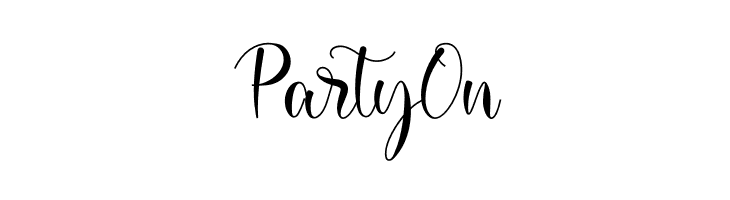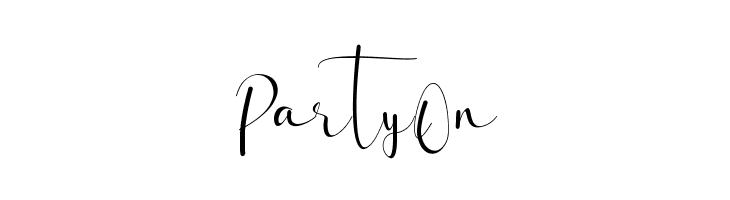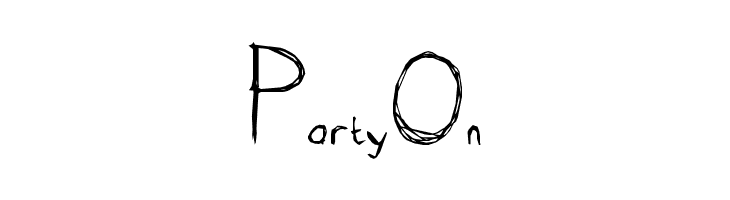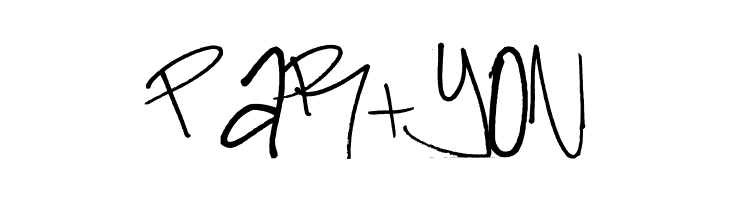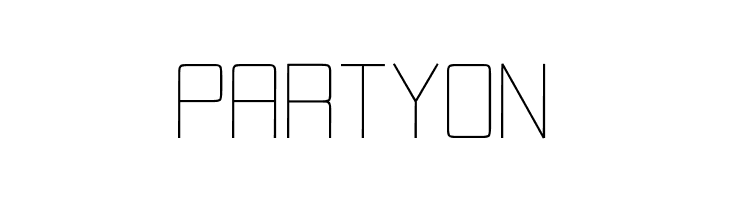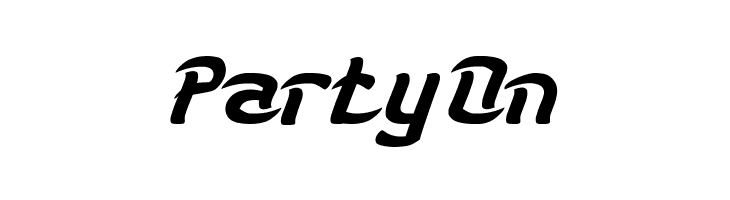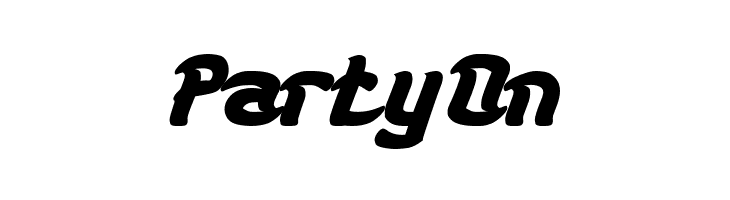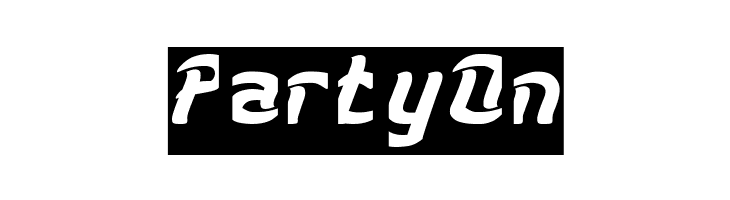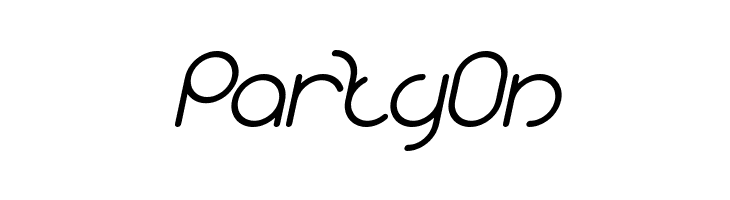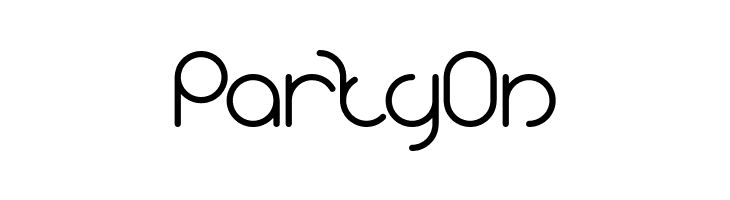
• Kacugak - demo version
A geometric, minimalist font with thin lines and angular shapes, perfect for modern designs.
• Kadafia
A dynamic, handwritten font with fluid strokes and an expressive style.
• Kallyca Kallyca
An elegant and flowing script font with graceful curves and fluid strokes.
• Kamiley
A playful and elegant script font with flowing, cursive letters.
• KARATE Bold
A bold, dynamic font with thick, rounded strokes and a slightly slanted, energetic style.
• KARATE-Inverse
A bold, brush-like font with dynamic and energetic strokes.
• KARATE-light
A bold, dynamic font with a brush-like, energetic style.
• Karen_erc_2006
A hand-drawn, artistic font with irregular strokes and a unique, expressive style.
• karitza Bold
A modern, rounded font with smooth, continuous lines and a playful aesthetic.
• karitza Bold Italic
A bold, italic font with smooth, flowing curves and a modern, artistic style.